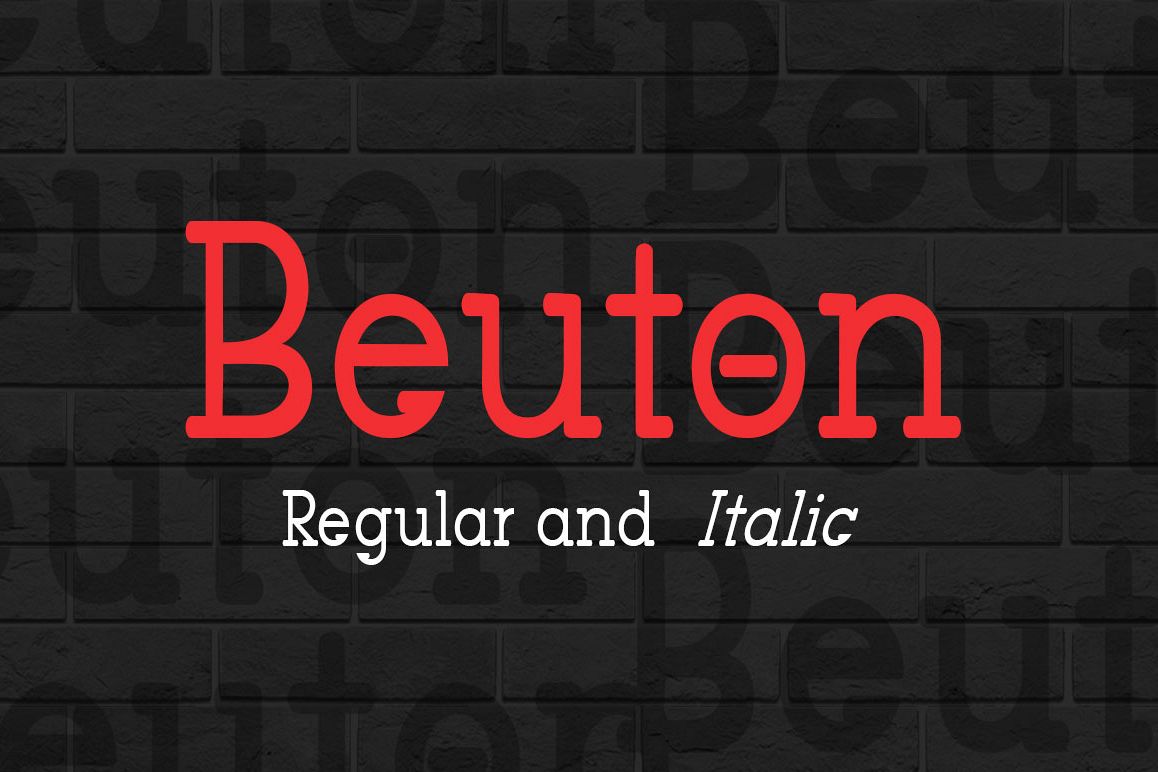
Beuton Regular
Introducing Beuton!
Beuton is a new modern font. Beuton is perfect for stationery, logos, t-shirts, paper, print designs, website headers, photo frames, leaflets, music covers, posters, image sliders and more.